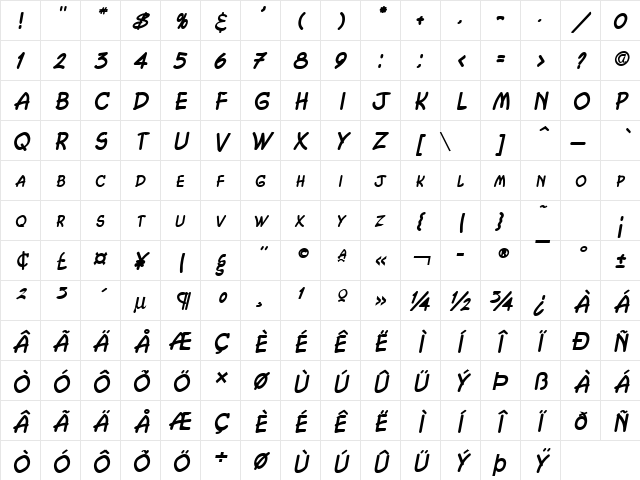
Chasm Bold Italic
Design Context for Chasm Typeface
Chasm is a composed and adaptable typeface that performs quietly and consistently across a wide range of design contexts. The slanted form adds forward momentum and visual energy. The heavy weight commands attention and anchors typographic hierarchies.
Pro Tip: Try Chasm for annotation and caption copy alongside an upright companion — the contrast in angle creates a dynamic but ordered typographic system.